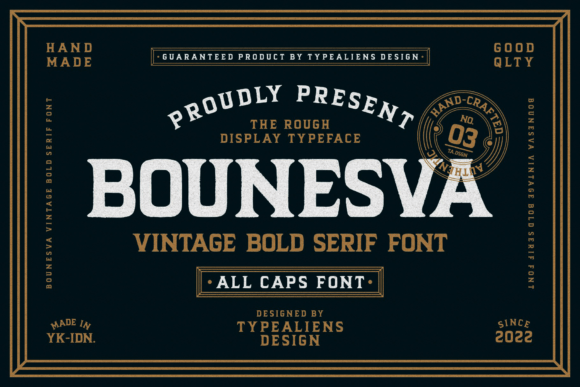
The Ultimate Guide to Bounesva Font: Elevate Your Designs with a Bold, Vintage Twist
I’ll never forget the time I was working on a motorcycle-themed design project, struggling to find the perfect font to capture the essence of the brand. My client wanted something bold, edgy, and nostalgic, but I was coming up blank. That’s when I stumbled upon Bounesva Font, a bold all-caps serif font that instantly resonated with the project’s vibe. In this article, I’ll share my experience with Bounesva, its features, and how to make the most of it in your designs.
An Honest Review of Bounesva Font
What I Love About Bounesva ✨
• ✅ Perfect for motorcycle and vintage-related designs: Bounesva’s bold, rugged aesthetic screams vintage charm, making it an excellent choice for projects that require a classic, nostalgic feel.
• ✅ Suitable for headlines and short texts: The font’s serif style and bold weight make it perfect for headlines, titles, and short texts that need to grab attention.
• ✅ Modern design versatility: Bounesva’s clean lines and classic serif style also make it suitable for modern designs, such as fashion, beauty, or lifestyle projects.
• ✅ Easy to read: Despite its bold weight, Bounesva remains surprisingly legible, even at smaller font sizes.
• ⚠️ Limited use for body text: Due to its bold weight and serif style, Bounesva might not be the best choice for lengthy body text. It’s better suited for headlines, titles, and short paragraphs.
• ⚠️ Limited font variations: Bounesva is primarily an all-caps font, which might limit its use for designs that require a mix of uppercase and lowercase letters.
The Backstory of Bounesva Font
Bounesva Font was designed with the motorcycle and vintage enthusiast in mind. The font’s creator wanted to craft a bold, rugged font that would evoke the spirit of classic motorcycles and vintage designs. The result is a font that’s both nostalgic and modern, perfect for designers looking to add a touch of vintage charm to their projects.
What is Bounesva Font best suited for? Bounesva Font is perfect for motorcycle and vintage-related designs, headlines, short texts, and modern designs.
Can I use Bounesva Font for body text? While Bounesva Font can be used for body text, it’s better suited for headlines, titles, and short paragraphs due to its bold weight and serif style.
Does Bounesva Font support OpenType features? Yes, Bounesva Font supports OpenType features, including glyphs and stylistic alternates.